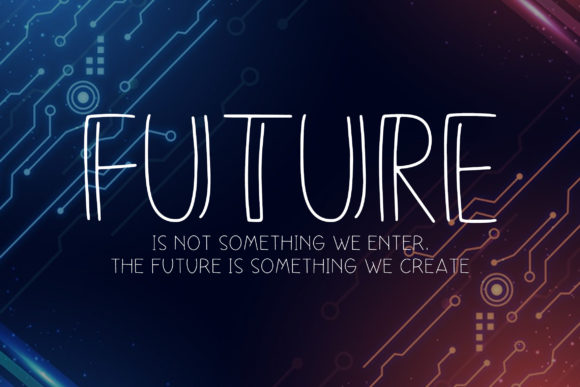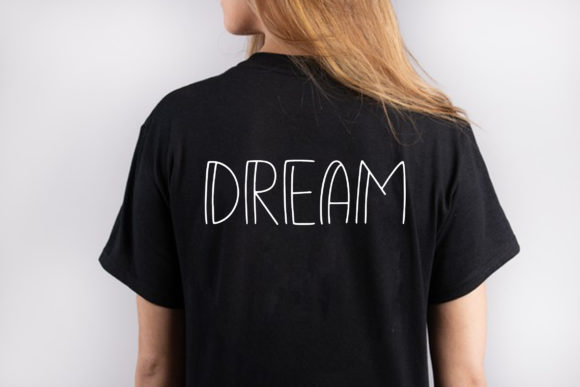
Space is a thin lettered, simple and modern display font. No matter the topic, this font will be an incredibly asset to your fonts’ library, as it has the potential to elevate any creation.
Space Font